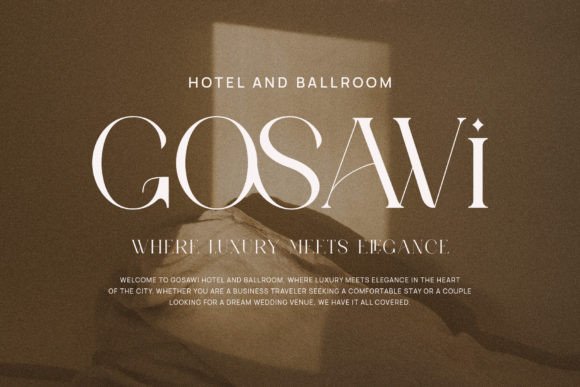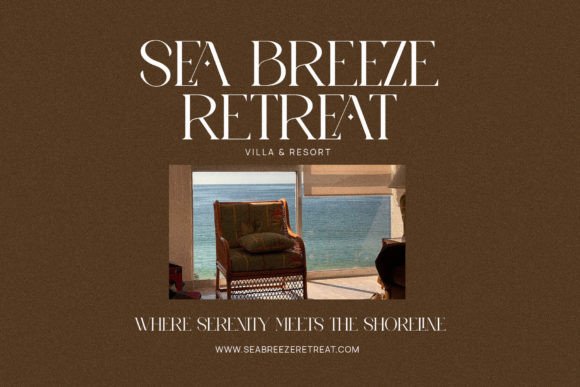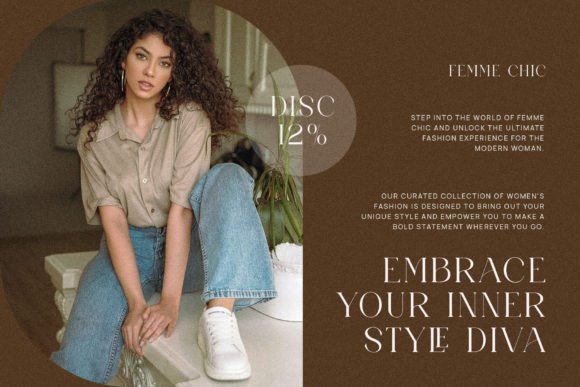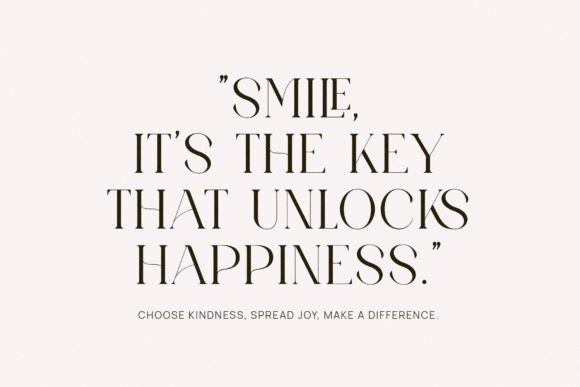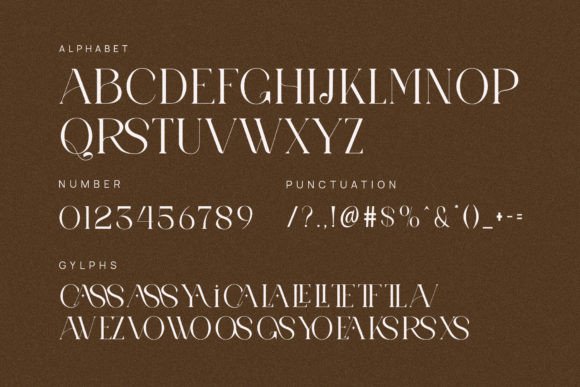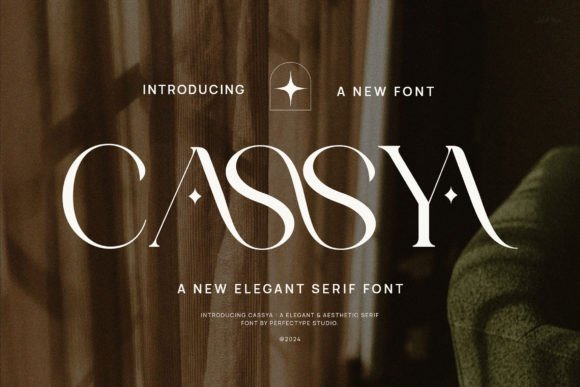
Cassya Font: Elevate Your Designs with Elegance and Sophistication
In the world of typography, a well-crafted font can make all the difference in elevating your designs from ordinary to extraordinary. If you’re a designer or crafter looking for a typeface that exudes elegance, sophistication, and modern style, look no further than the Cassya Font. This stunning serif typeface combines classic charm with contemporary flair, making it the perfect choice for a wide range of design projects.
A Versatile Font for Diverse Design Needs
Cassya Font is an incredibly versatile typeface that can be used for various design applications. Whether you’re working on branding projects, logos, wedding designs, social media posts, advertisements, product packaging, product designs, labels, photography, watermarks, invitations, stationery, or any other creative project, this font is sure to impress. Its high level of readability makes it an excellent choice for body text, while its elegant lines and curves add a touch of sophistication to headings and titles.
Elegant Serif Typeface with a Modern Twist
The Cassya Font boasts a beautiful serif design that echoes classic typography, yet its modern style ensures it remains fresh and relevant. The elegant lines, refined curves, and precise craftsmanship that have gone into creating this font make it a standout in any design. The serif details add a level of sophistication and luxury, perfect for designs that require a high-end feel.
One of the key features of the Cassya Font is its PUA (Private Use Area) encoding. This means that you can easily access all the amazing glyphs and ligatures included in the font, allowing you to add an extra layer of creativity and uniqueness to your designs. With PUA encoding, you can effortlessly insert swashes, stylistic alternates, and other special characters, taking your typography to the next level.
Why Choose Cassya Font?
So, what sets Cassya Font apart from other typefaces? Here are just a few reasons why designers and crafters love working with this font:
• Elegance and sophistication: Cassya Font’s classic serif design and modern style make it perfect for creating elegant and sophisticated designs.
• Versatility: This font can be used for a wide range of design projects, from branding and logos to wedding designs and social media posts.
• Readability: Cassya Font boasts a high level of readability, making it ideal for body text and extended reading.
• PUA encoded: Easy access to glyphs and ligatures allows for added creativity and customization.
Tips for Using Cassya Font
To get the most out of Cassya Font, here are a few tips to keep in mind:
• Experiment with font sizes: Cassya Font looks great in a variety of font sizes, from large headings to smaller body text.
• Play with glyphs and ligatures: Take advantage of the PUA encoding to add unique touches to your designs.
• Pair with complementary fonts: Cassya Font works well with a range of other typefaces, so don’t be afraid to experiment with font pairings.
In conclusion, Cassya Font is an exceptional typeface that offers the perfect blend of elegance, sophistication, and modern style. Its versatility, readability, and PUA encoding make it an excellent choice for designers and crafters looking to elevate their designs. Whether you’re working on a branding project, wedding design, or social media post, Cassya Font is sure to impress. So why wait? Discover the beauty and versatility of Cassya Font for yourself and take your designs to new heights.